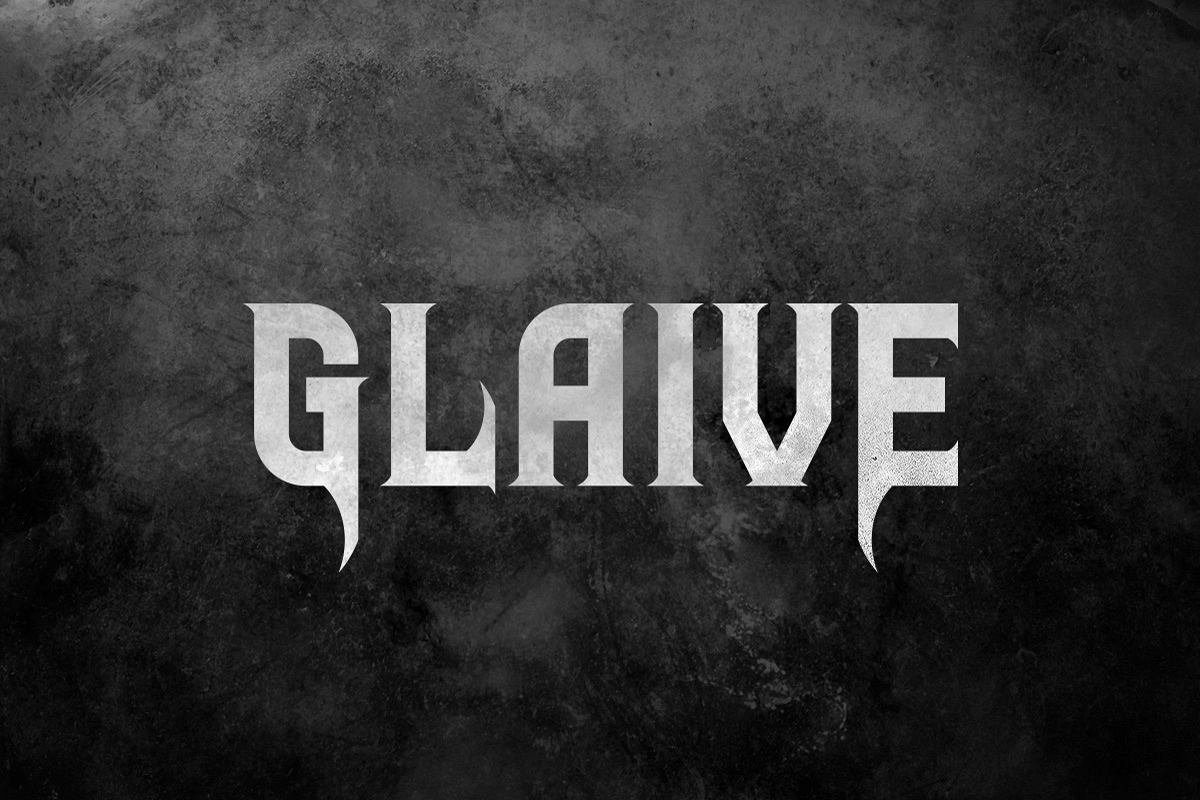
Glaive Typeface
Glaive Regular
Glaive Ornaments
Glaive is a typeface inspired by rock and metal music. It includes English uppercase letters, numbers and punctuation. Toggle caps lock to use the alternate letters.
Glaive Typeface